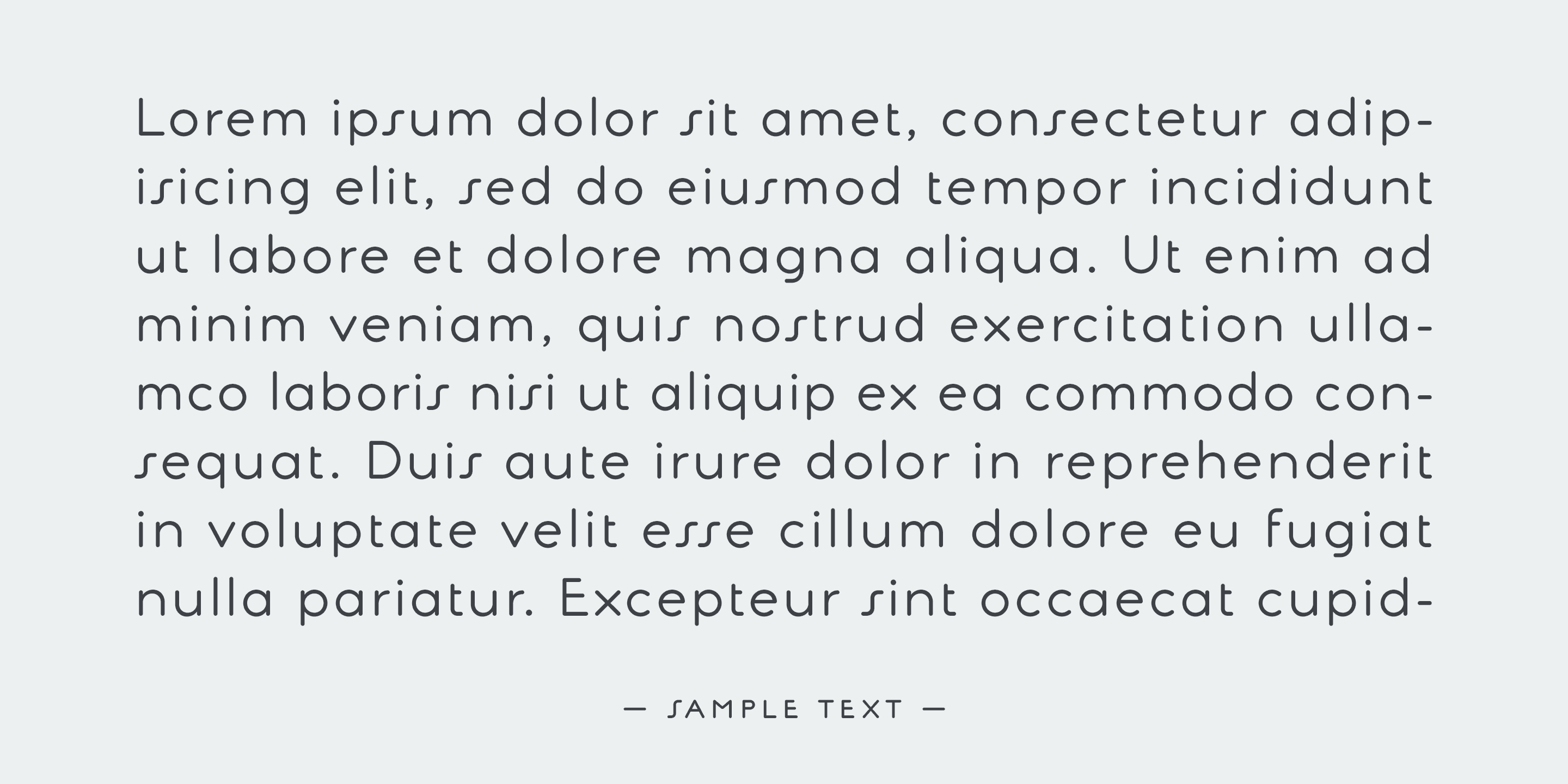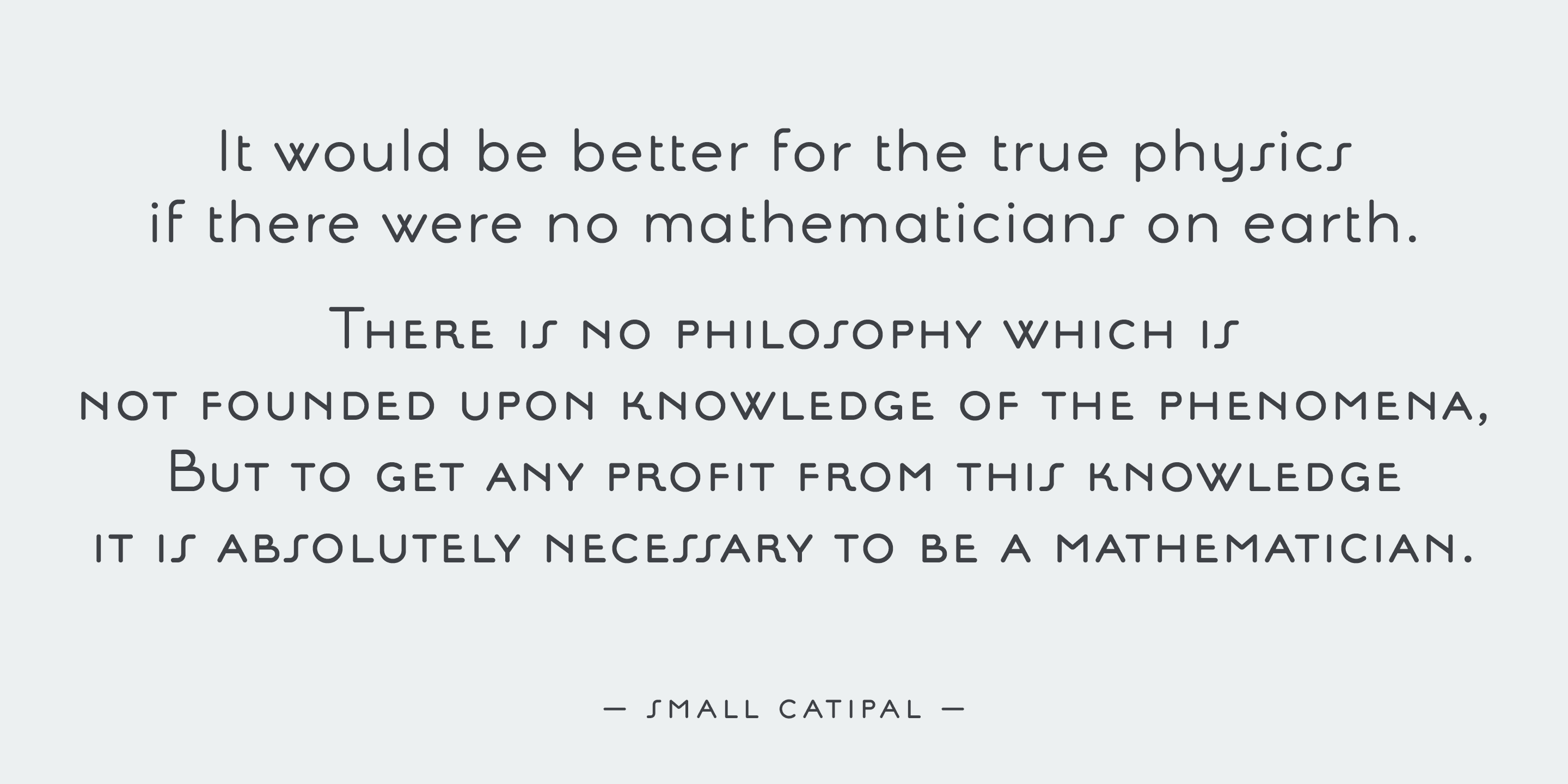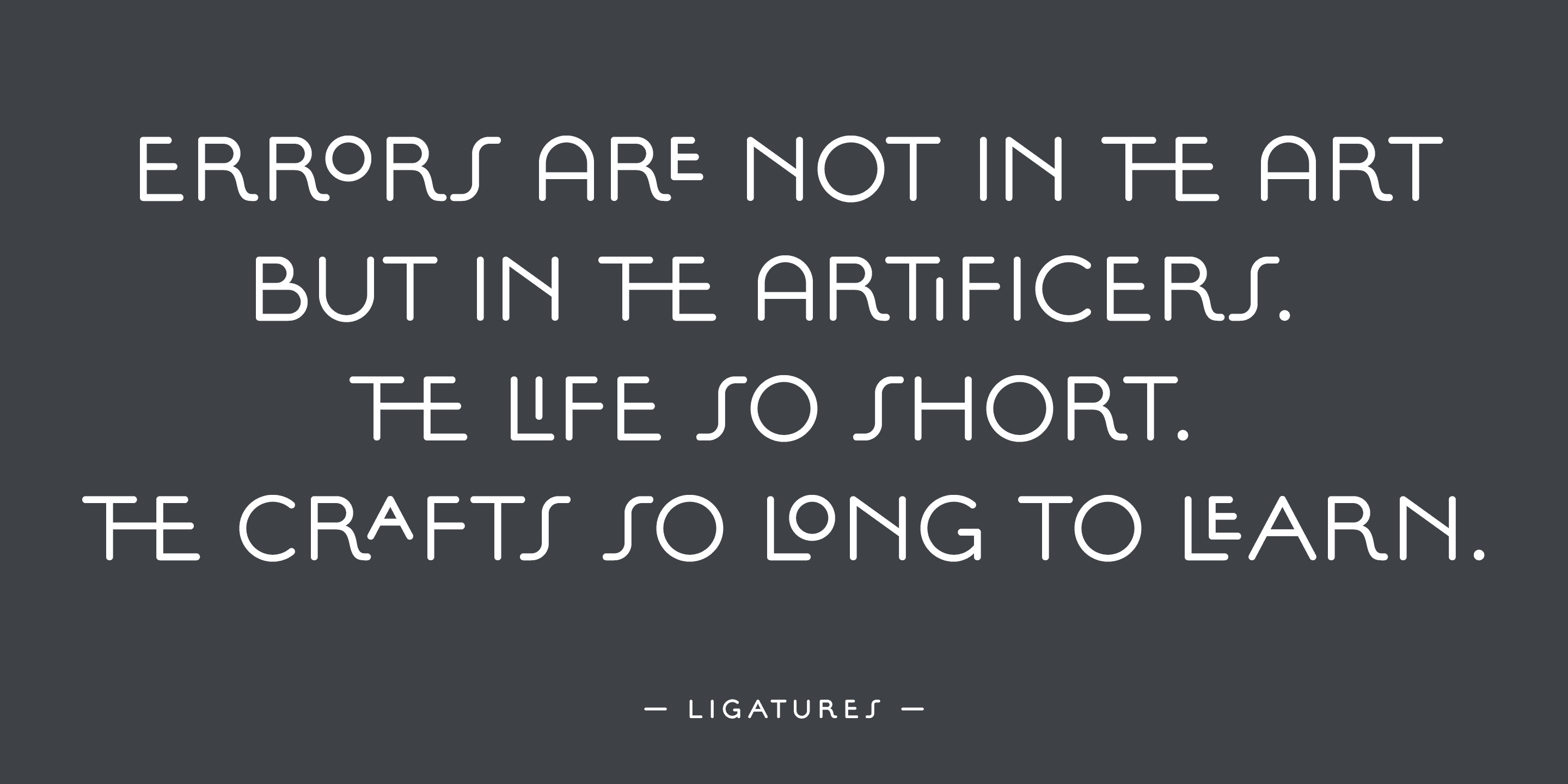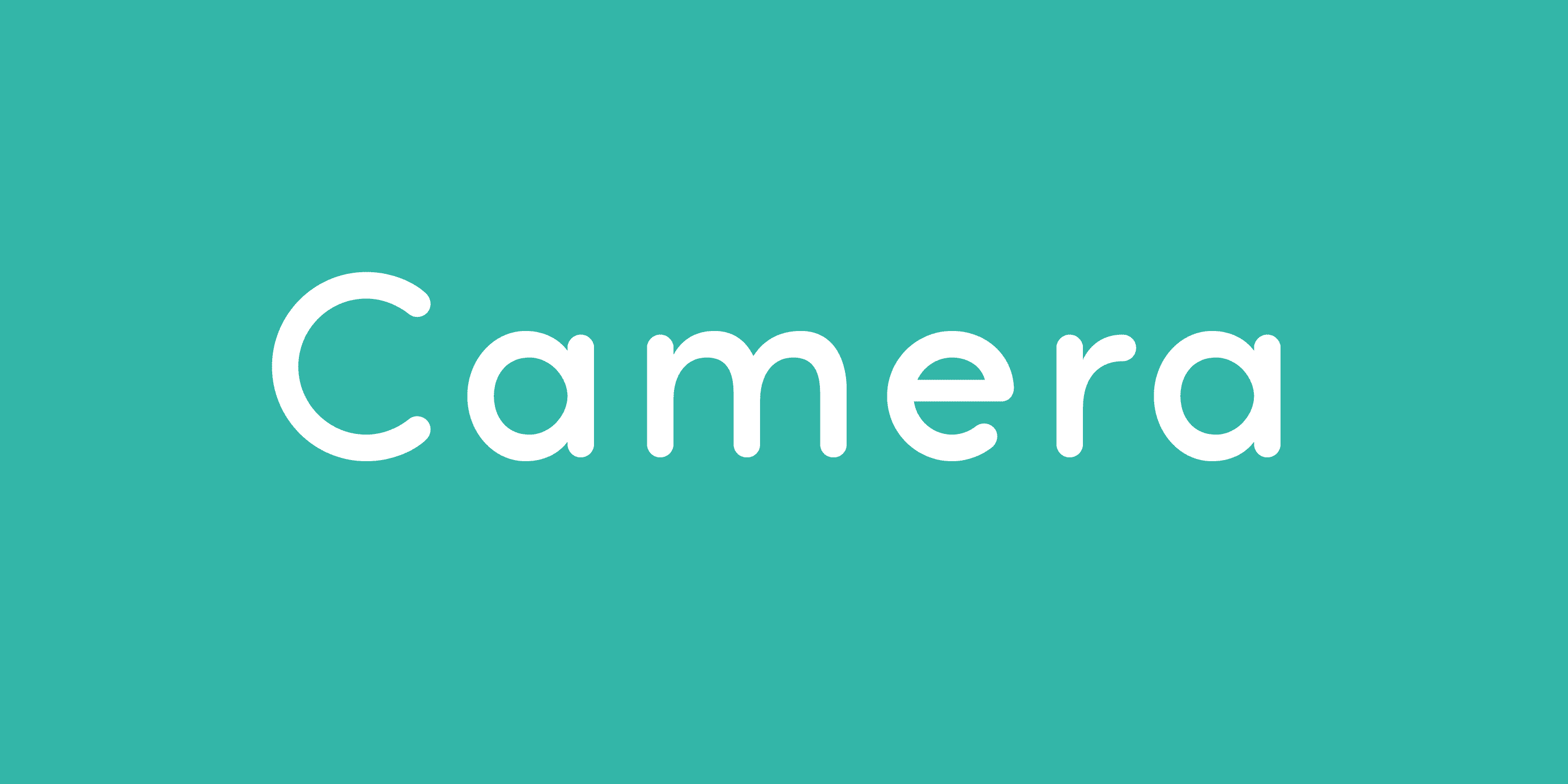
Camera Family (3 fonts)
The sweetest sans for your retro-style project. This font include ligatures and small capital for advanced typography.
Old-style Digits, Ligatures, Discretionary Ligatures, Small Caps, Alternates, Fractions